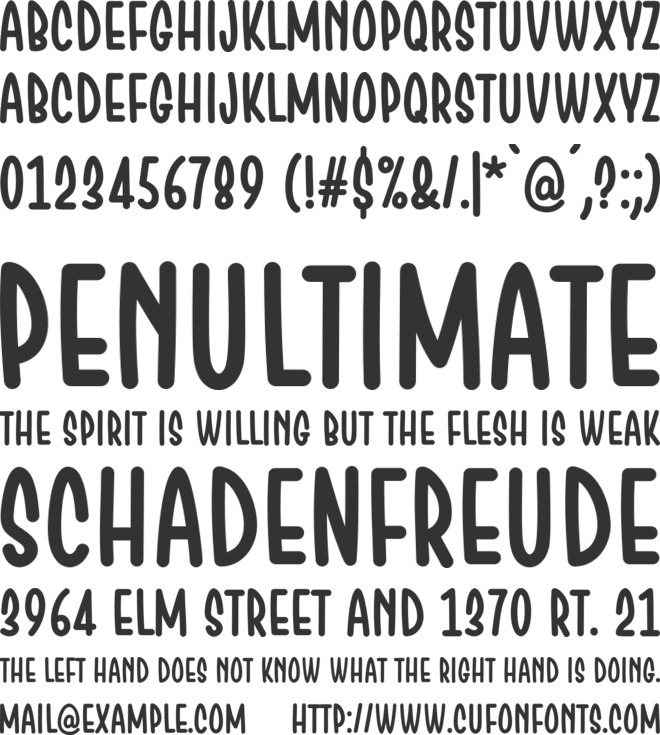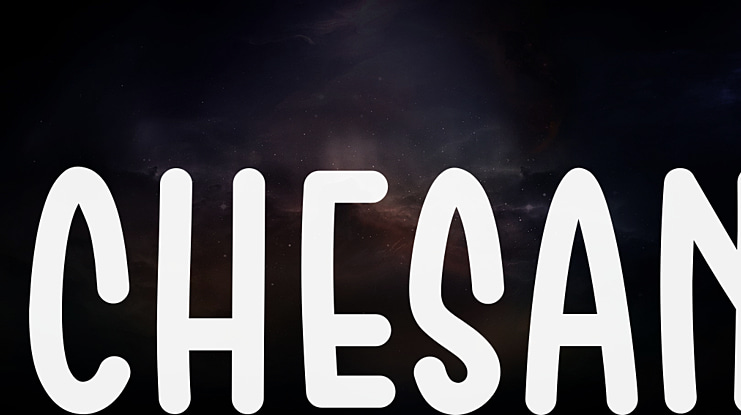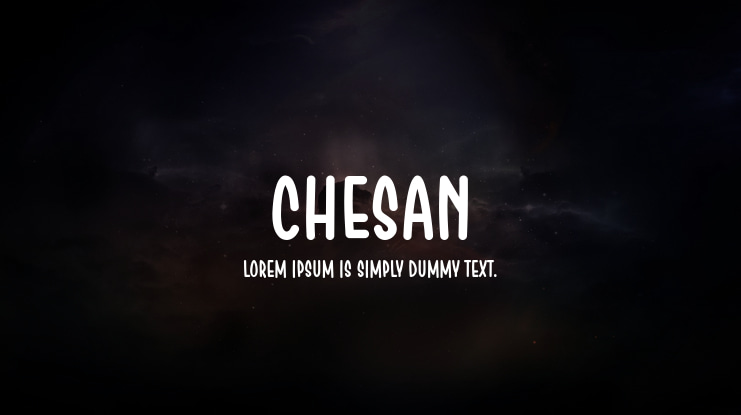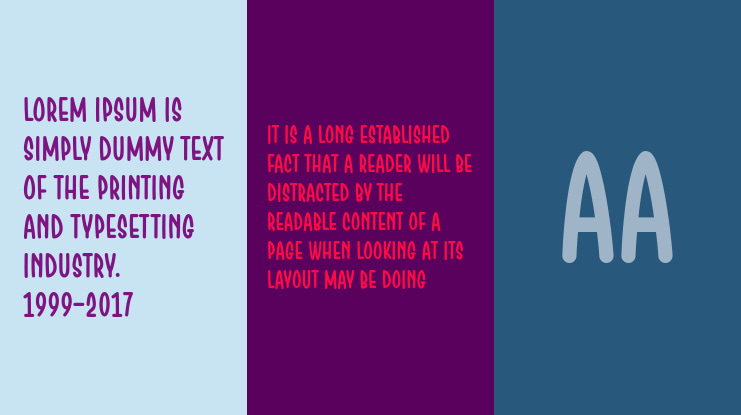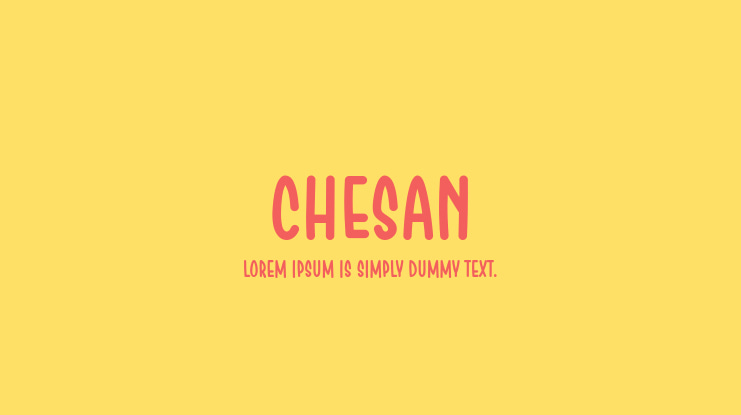
Chesan Font Family
Chesan © 7NTyes. 2017. All Rights ReservedChesan is a playful handwritten font that has a cartoonesque feeling to it, designed by Situjuh Nazara.It’s a fun type, but don’t let that fool you! It bold lines makes it very legible which makes it suitable for many different projects.Chesan comes in 4 variations: regular, italic, bold & bold italic.It is free for personal use only. You may support me to create more free for personal use fonts by donating as much as you wish to.For Commercial use license, get it exclusively only on Creative Fabrica: www.creativefabrica.com/product/chesan/ref/87/ (https://www.creativefabrica.com/product/chesan/ref/87/)Thank you for downloading and using Chesan Font. :)